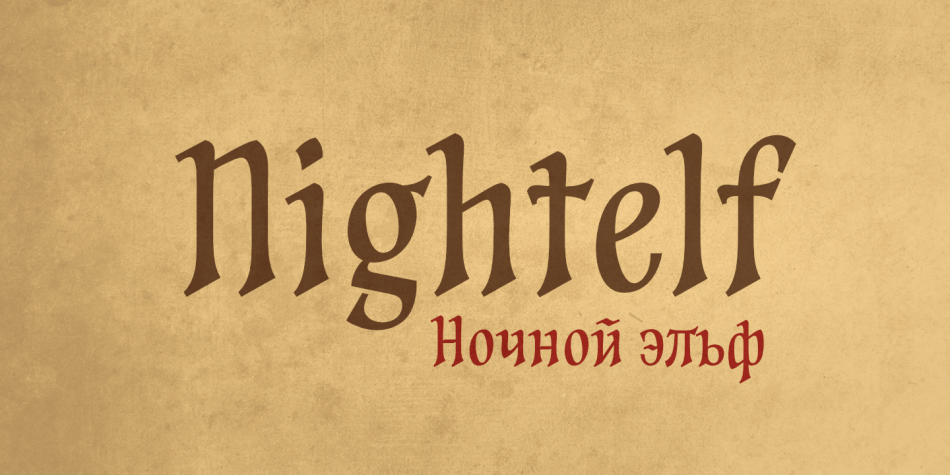
Nightelf is a historical font published by AKTF.
Heavily decorated antiques with surges instead of serifs. With reference to old-fashioned and blackletter fonts. Designed for short decorative inscriptions, titles of books, titles, logos. Suitable for cases where you need to reveal the historical European or magical fantasy character of the text.